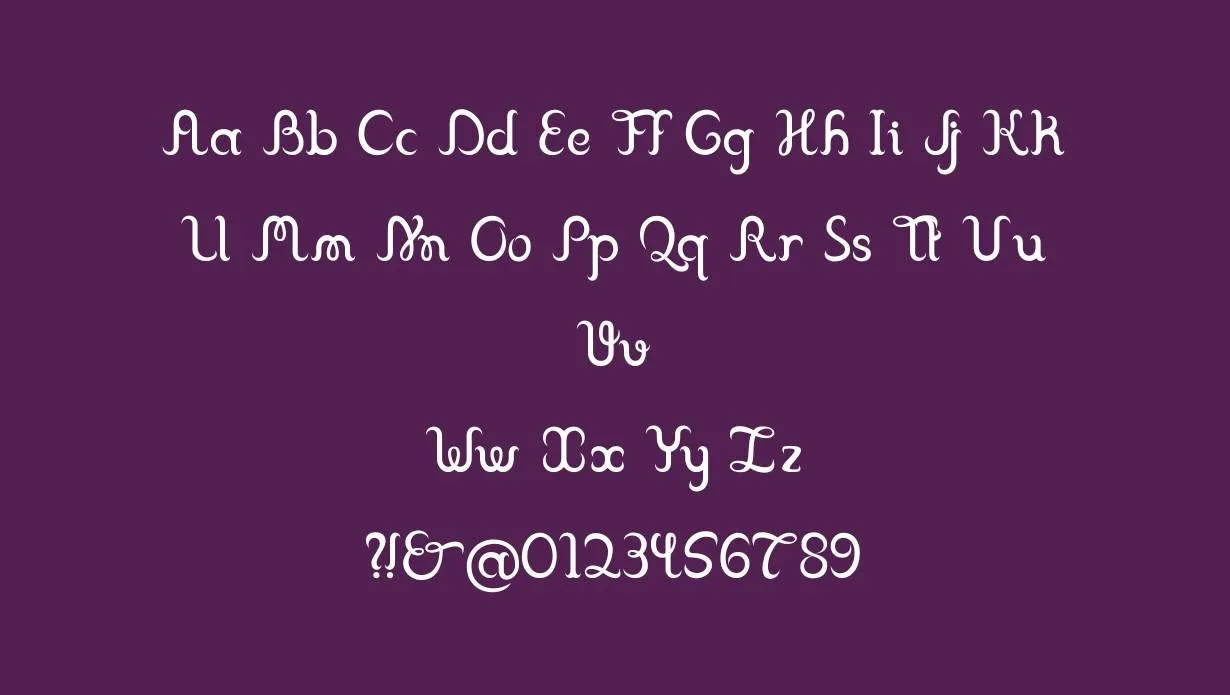
Franklin Cascaes Font belongs to the Fancy font family and was created by Mitsue Yanai, it is accessible in several formats such as TTF, OTF, HTML, and CSS.
This font goes well with nightmare before christmas font and generates incredible and innovative results. It has stylish and fantastic characters in uppercase, lowercase, digits, punctuations, alternates, and accents.